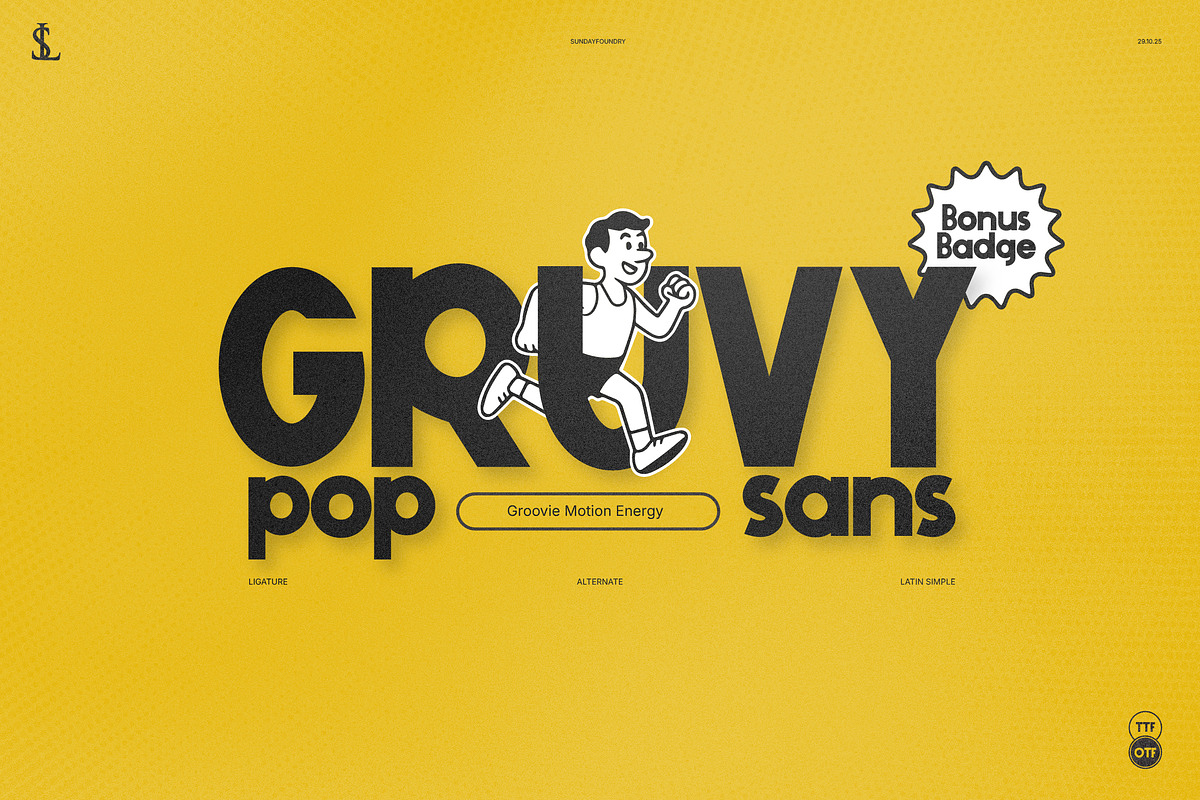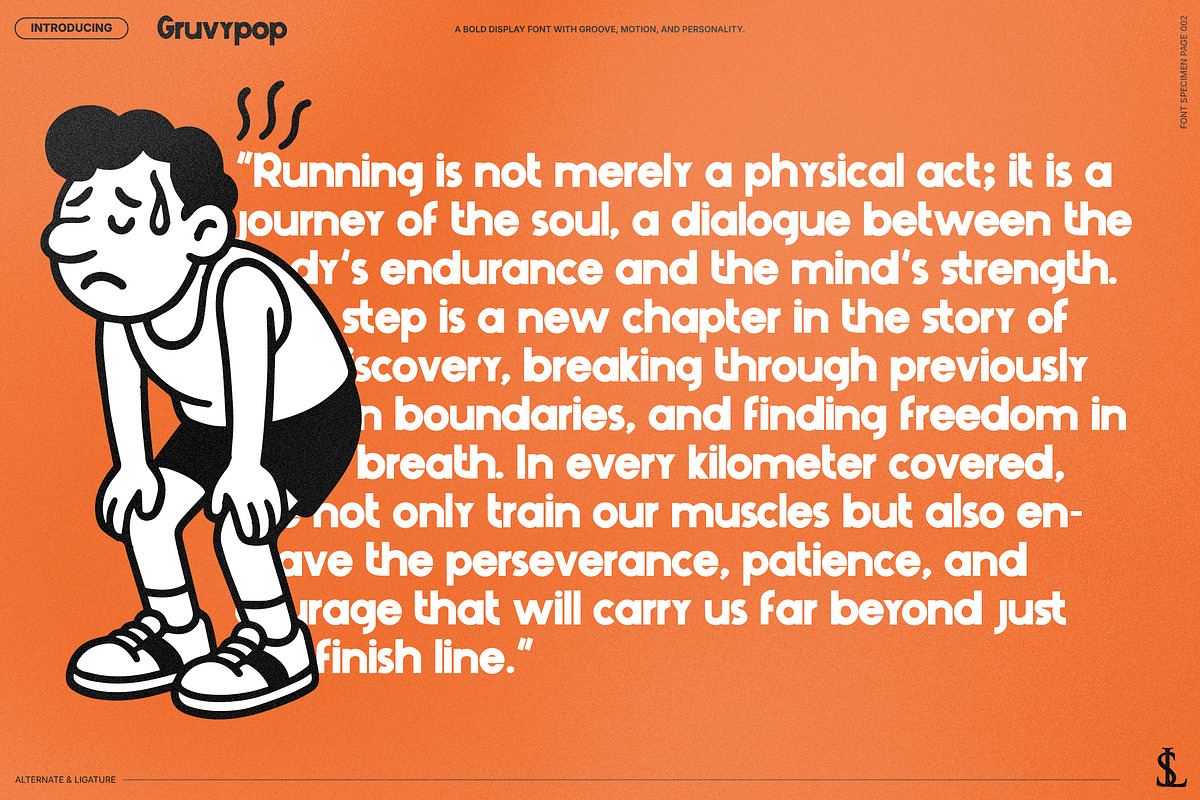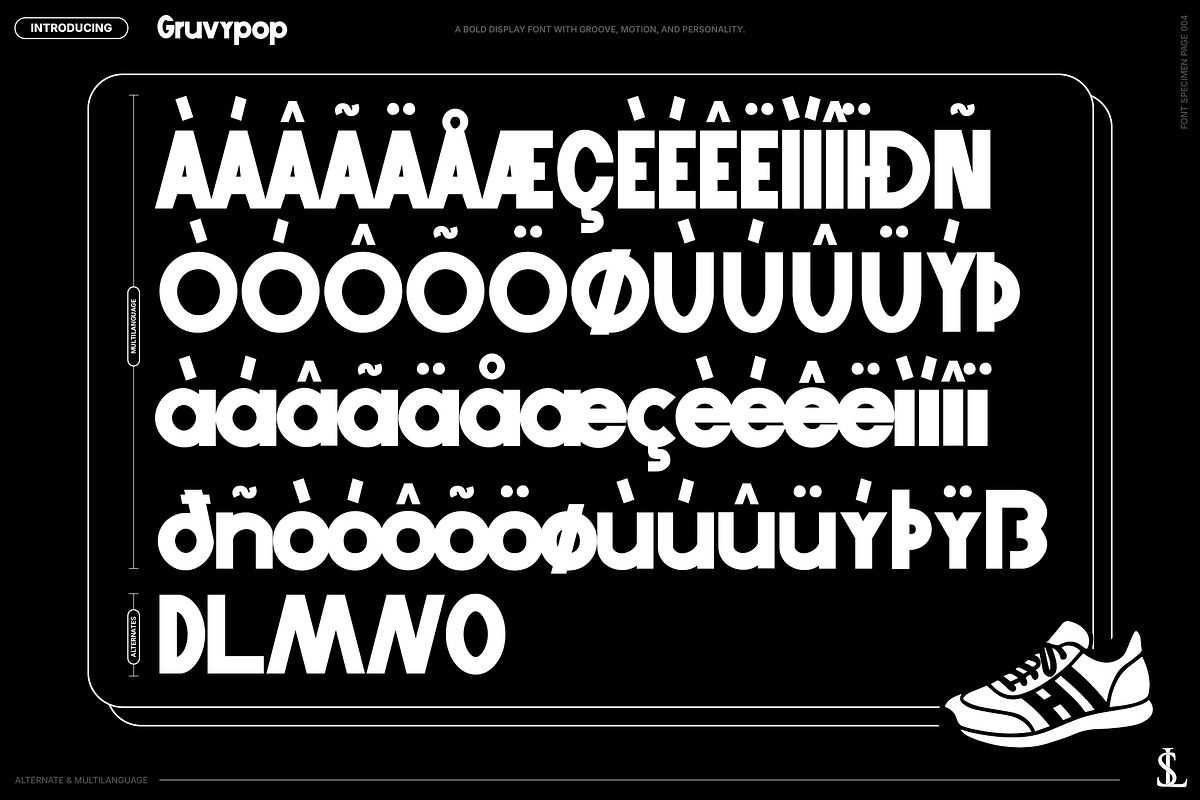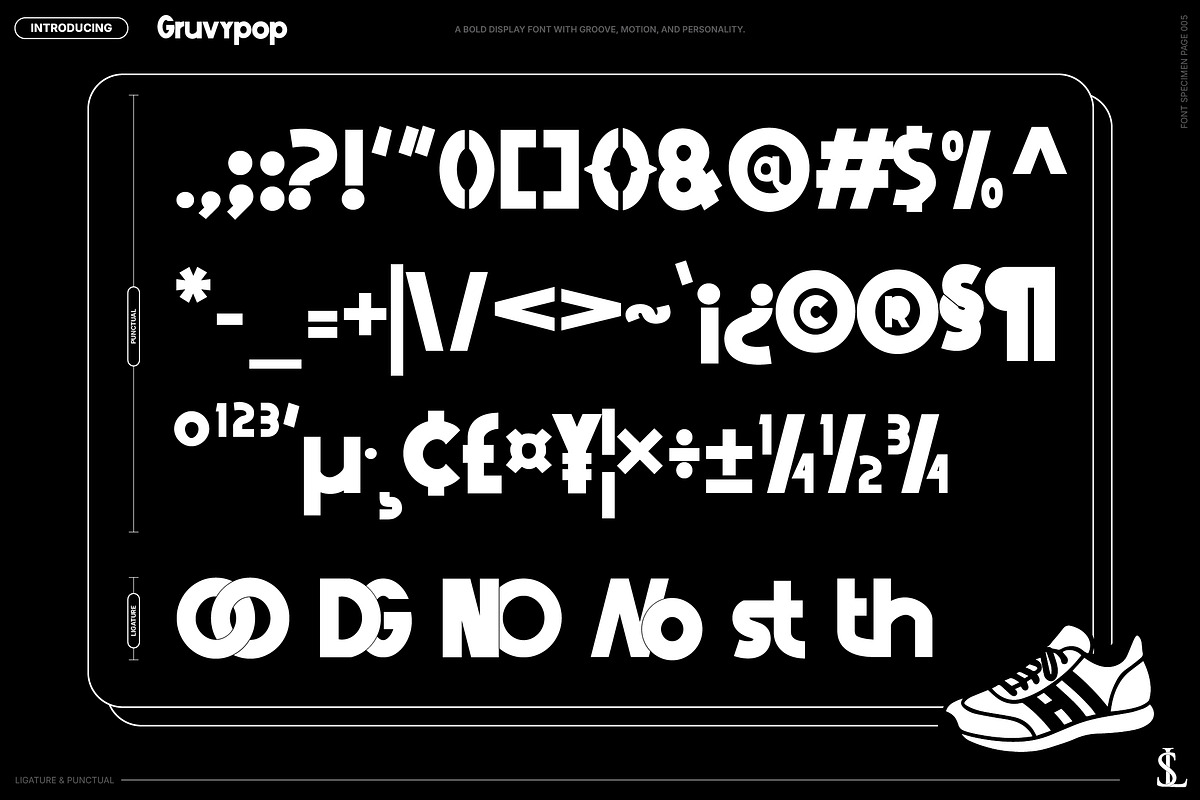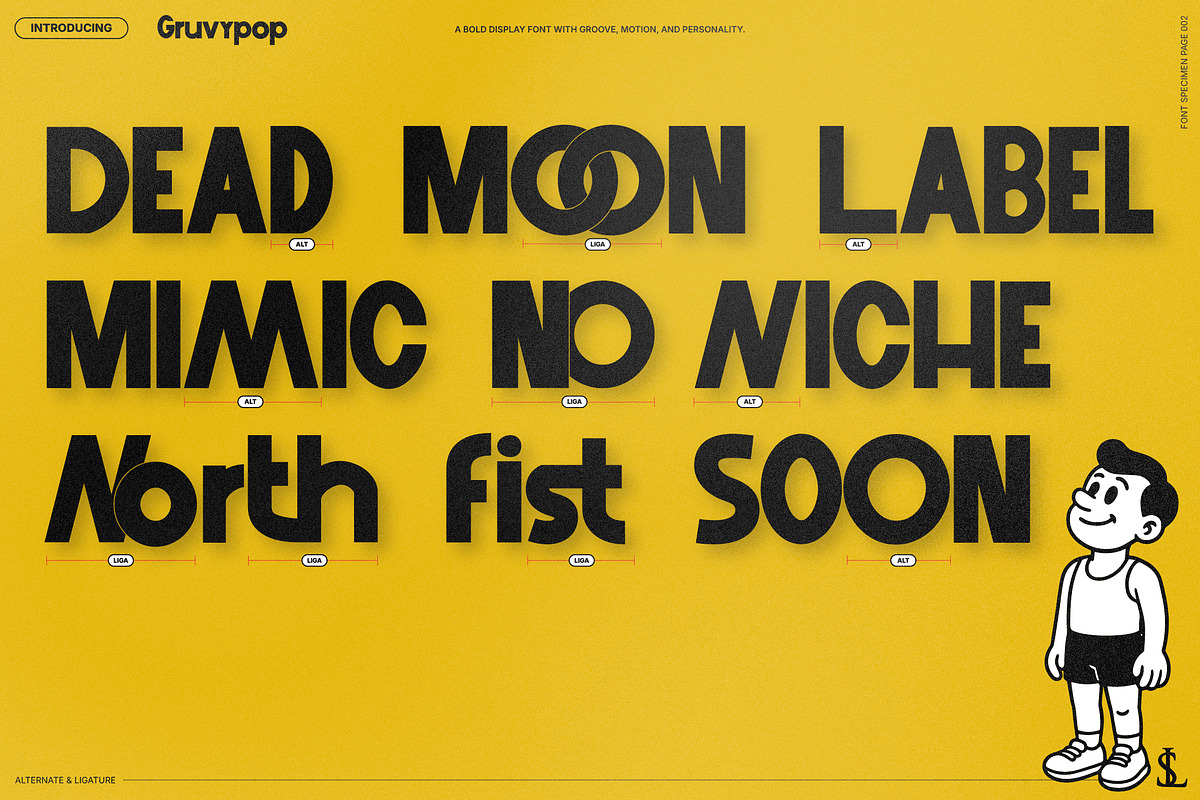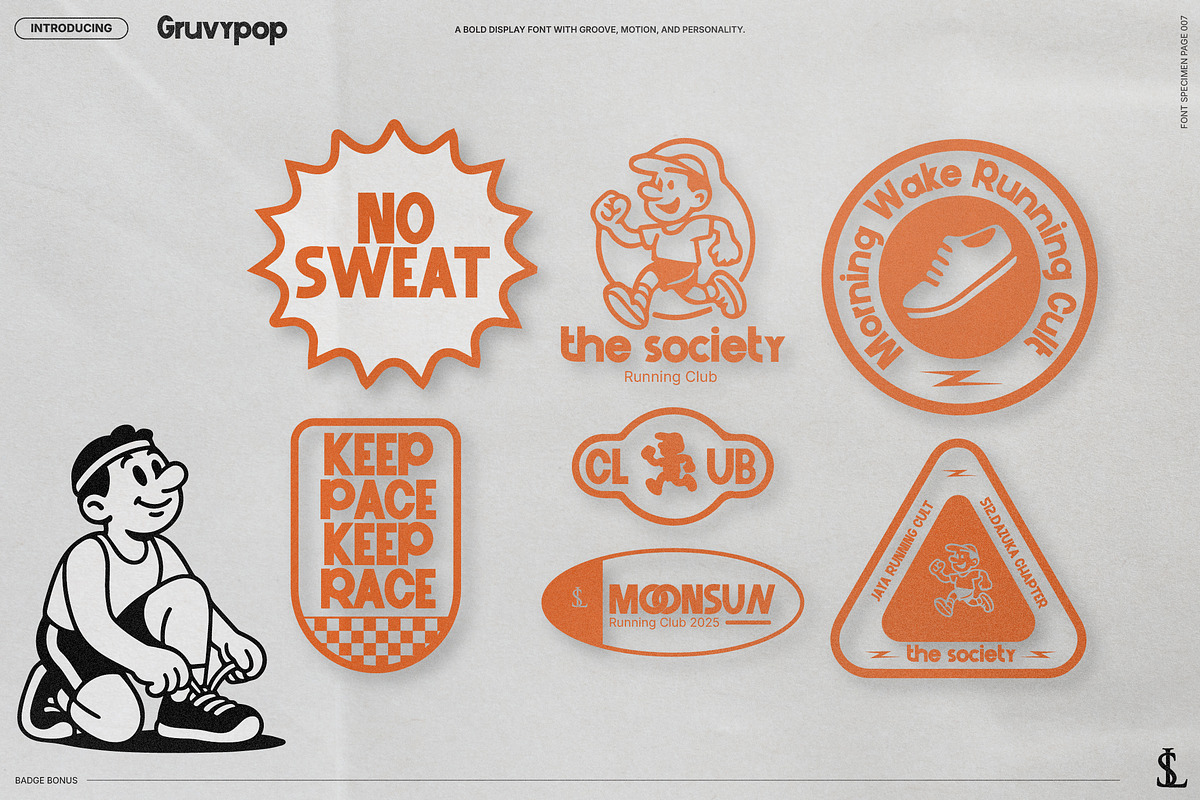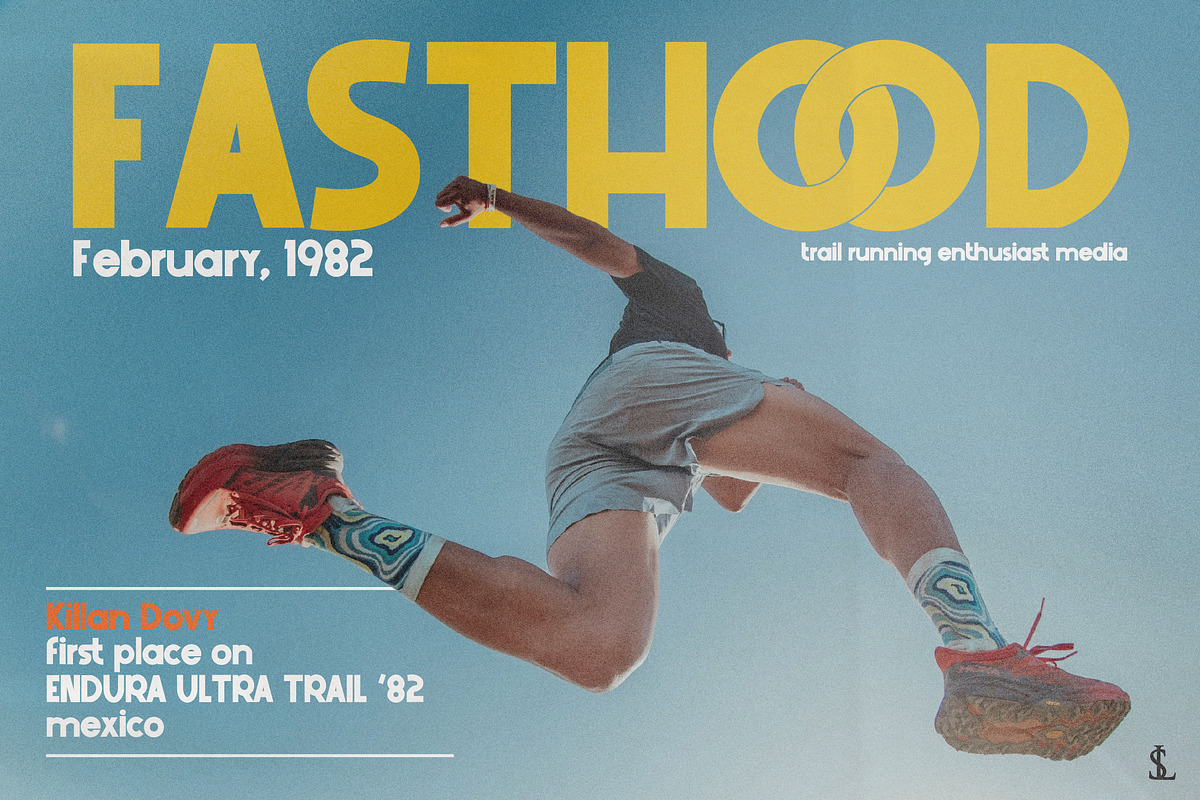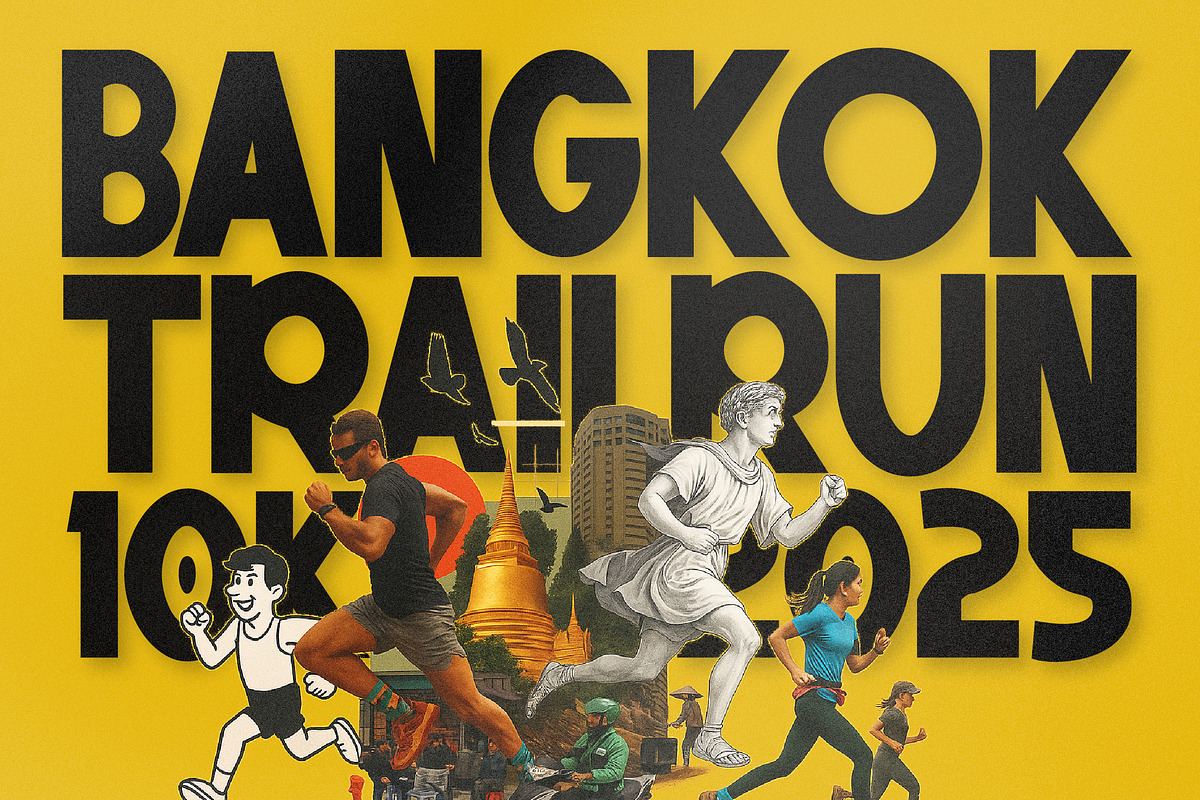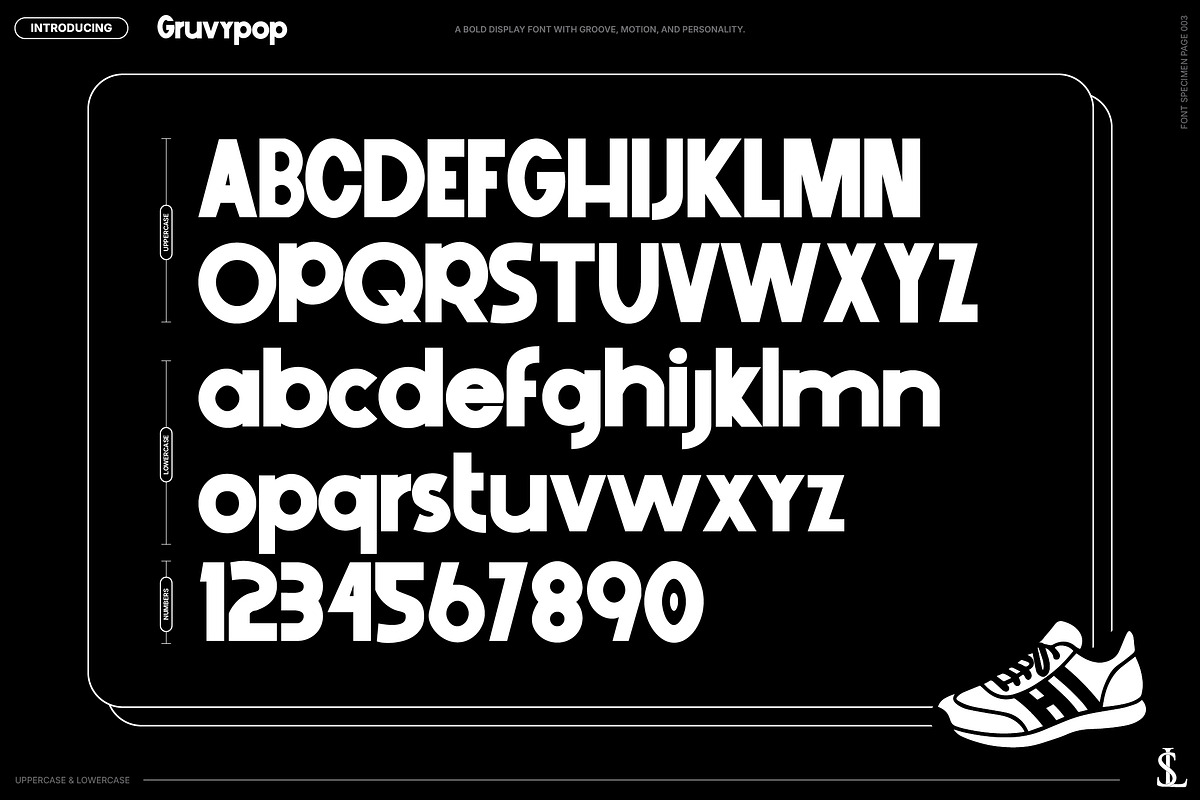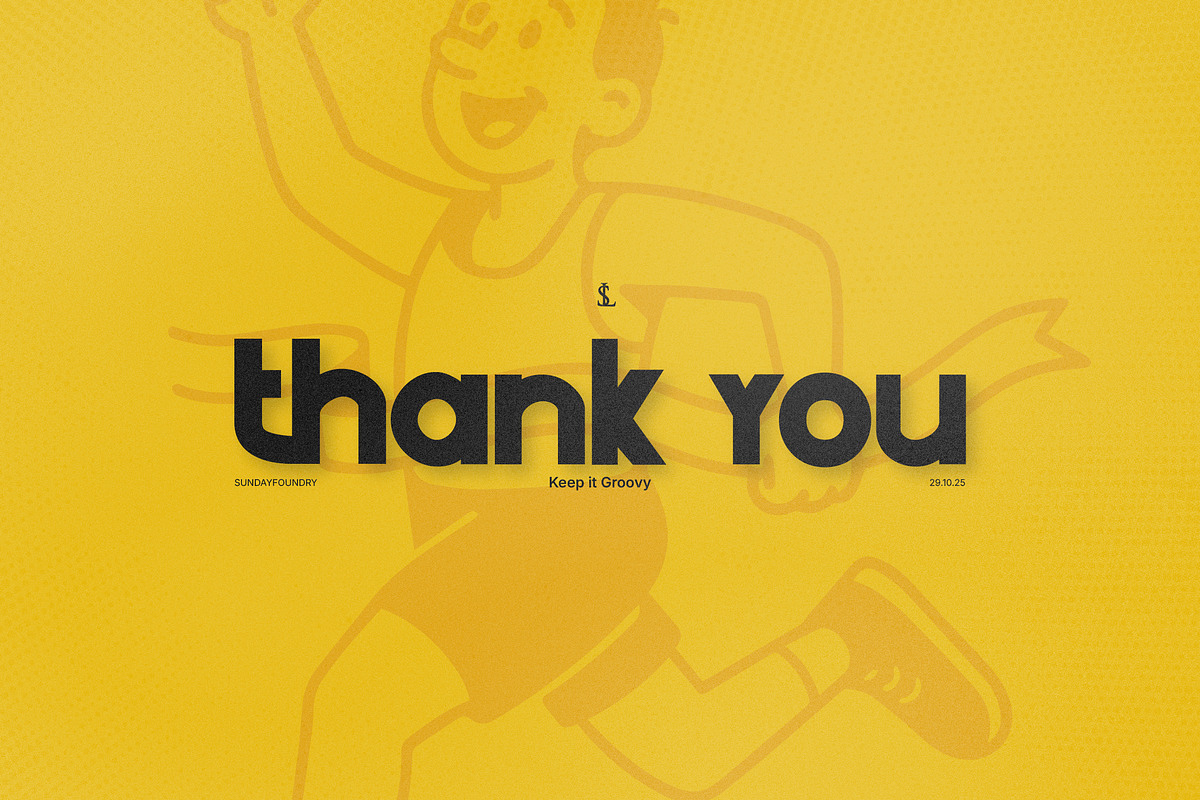
Gruvy Pop Sans
Gruvy Pop Sans is a bold display font inspired by 80s sports culture and modern editorial design. Every curve and counter is designed to move — bringing rhythm, energy, and attitude to your typography. Gruvy Pop blends retro athletic charm with geometric structure, creating a font that feels both nostalgic and fresh.
It’s made for projects that move — from trail running campaigns to energetic lifestyle branding.
- Sport Branding & Running Clubs
- Retro Posters & Editorial Design
- Music & Lifestyle Projects
- Type-driven Packaging & Logos